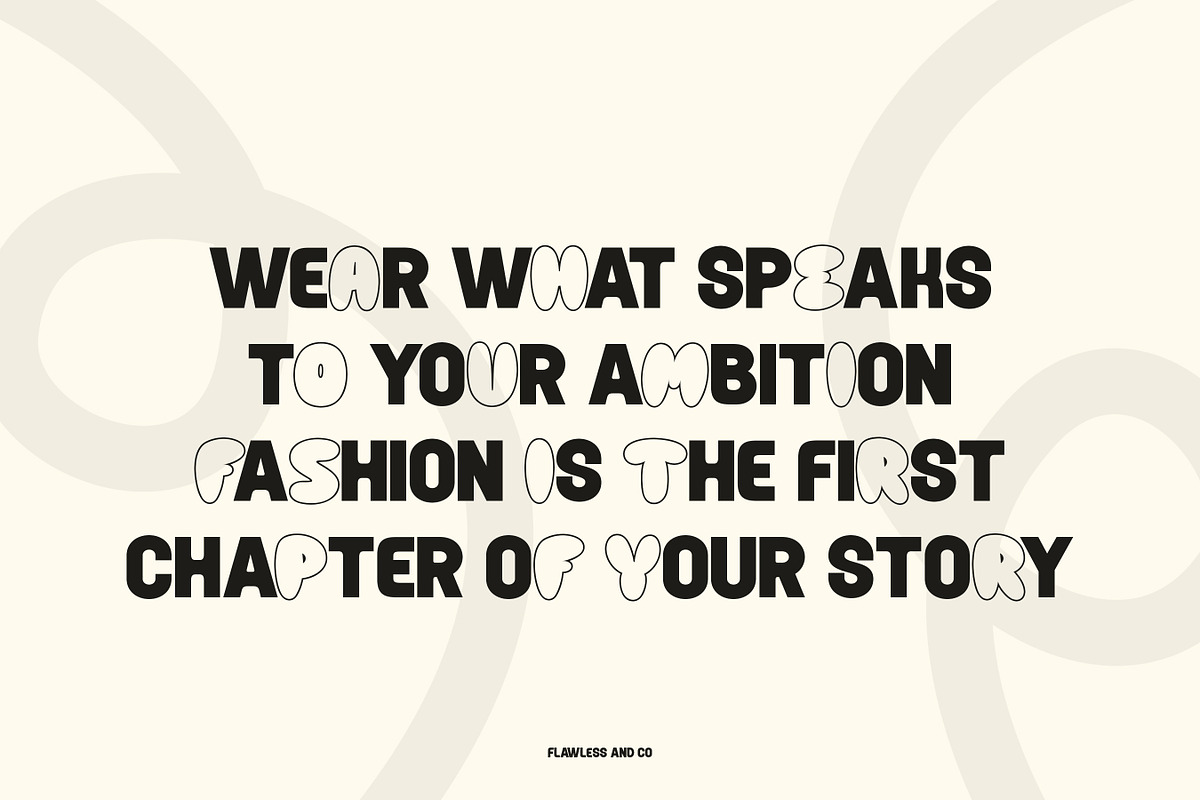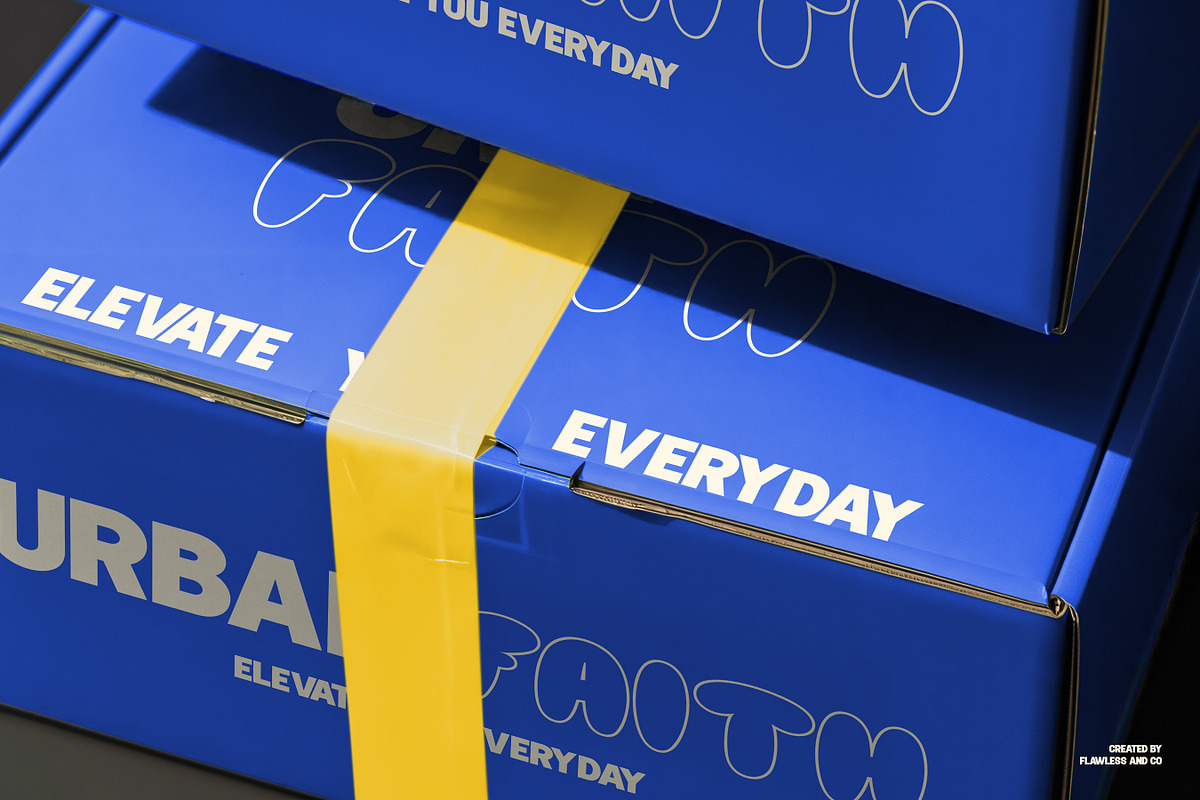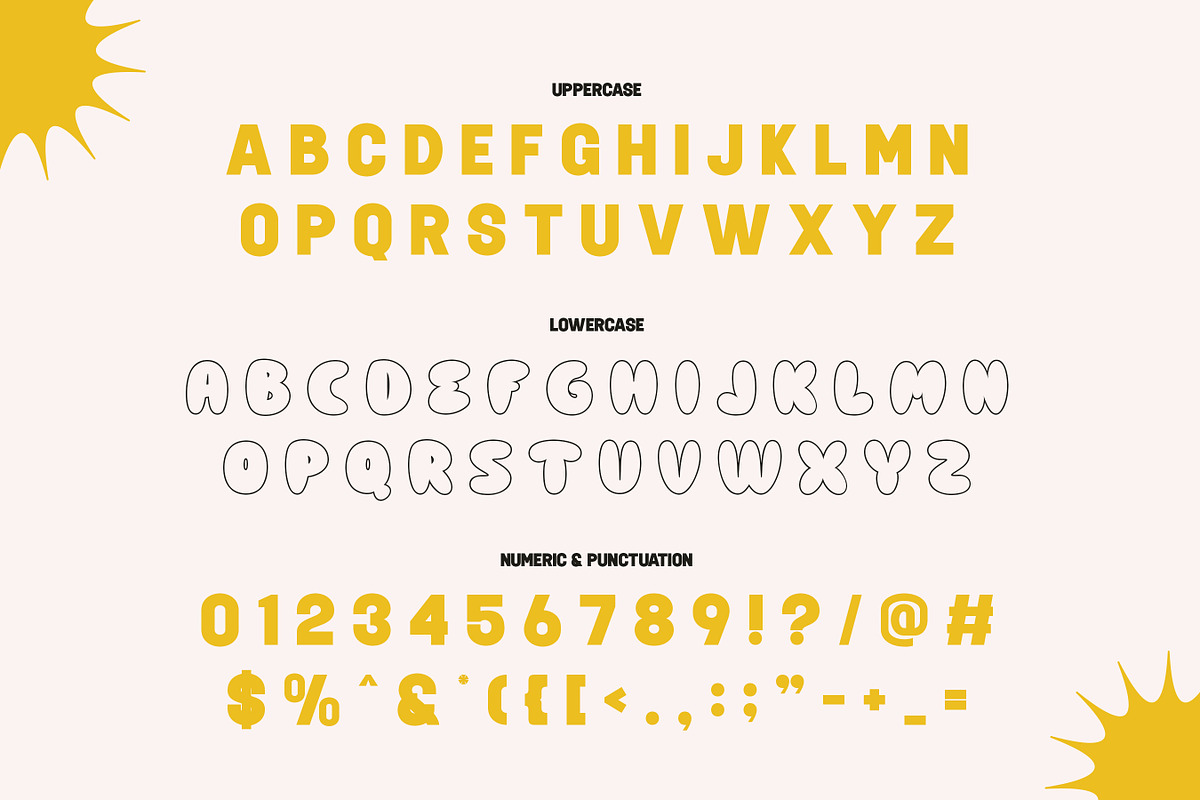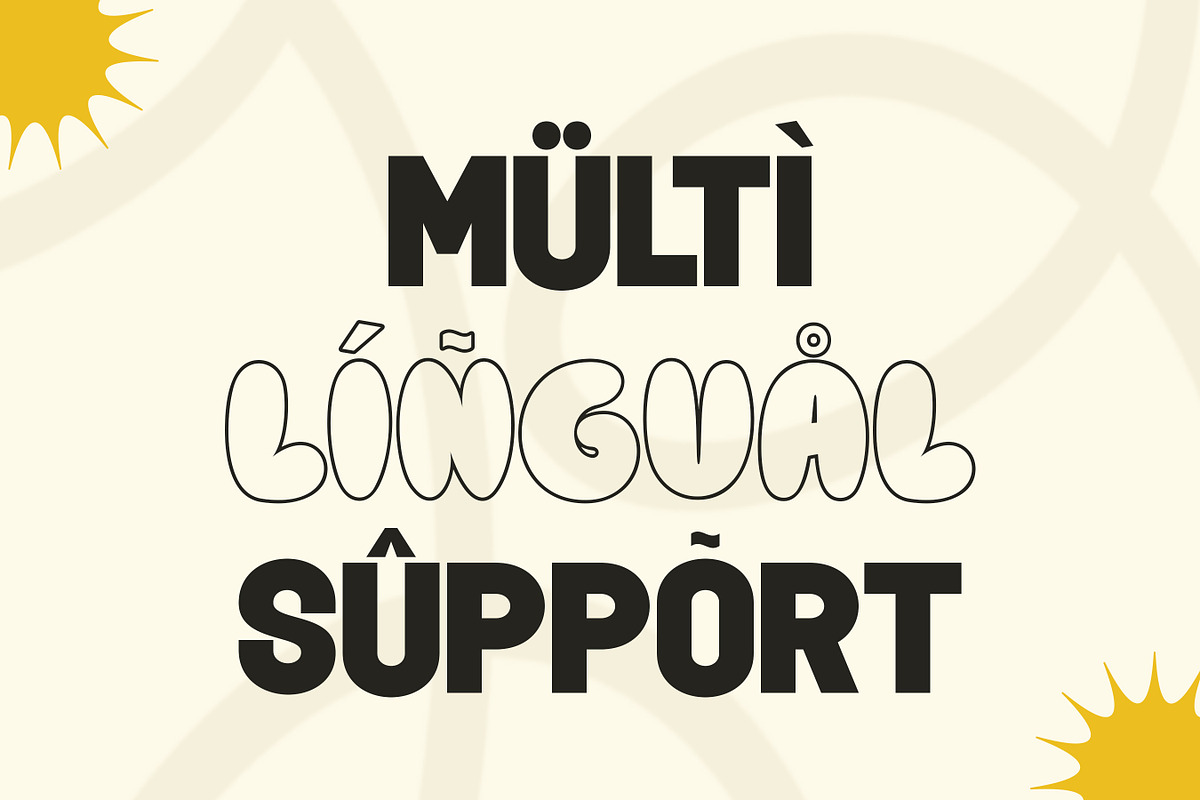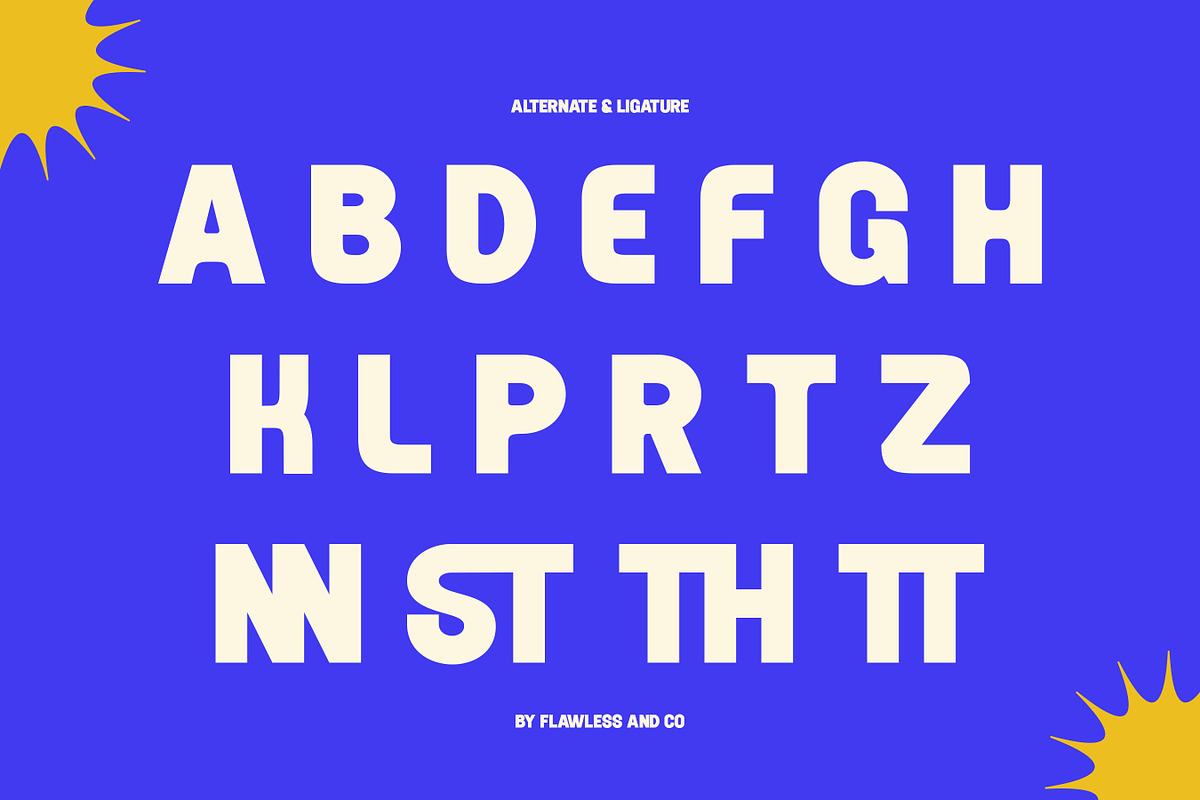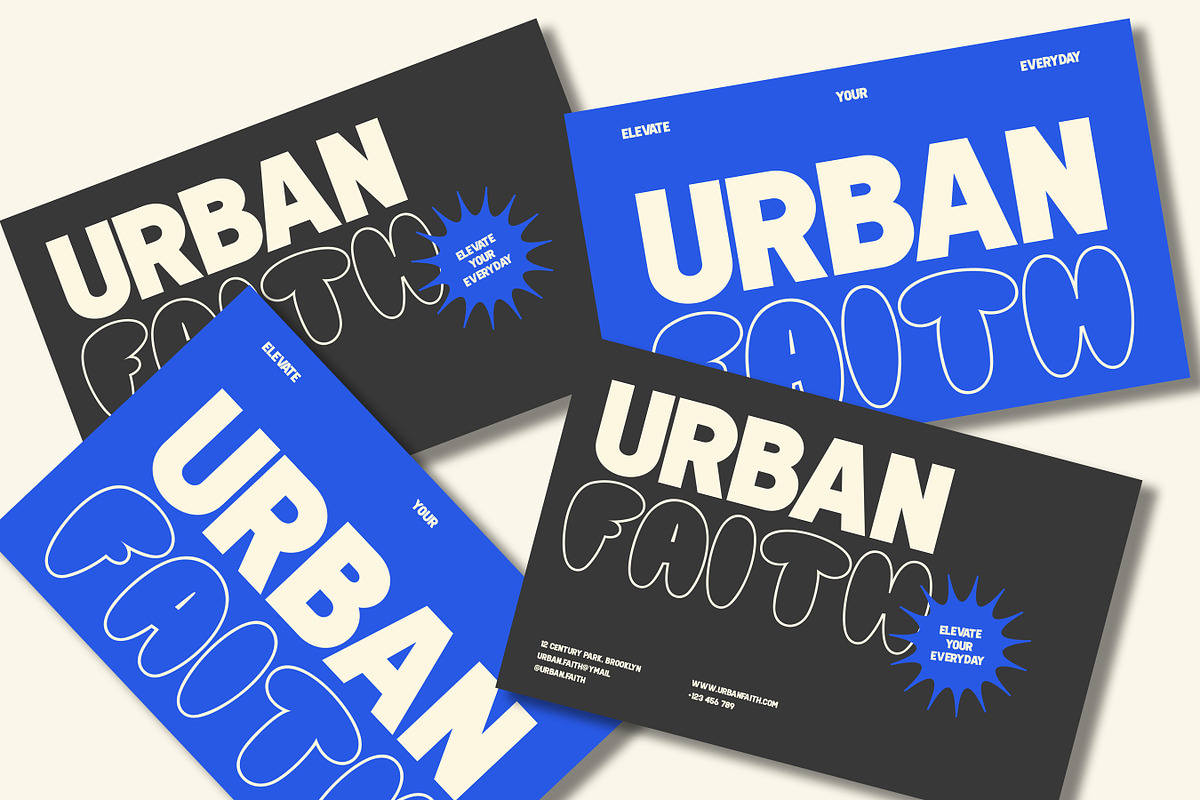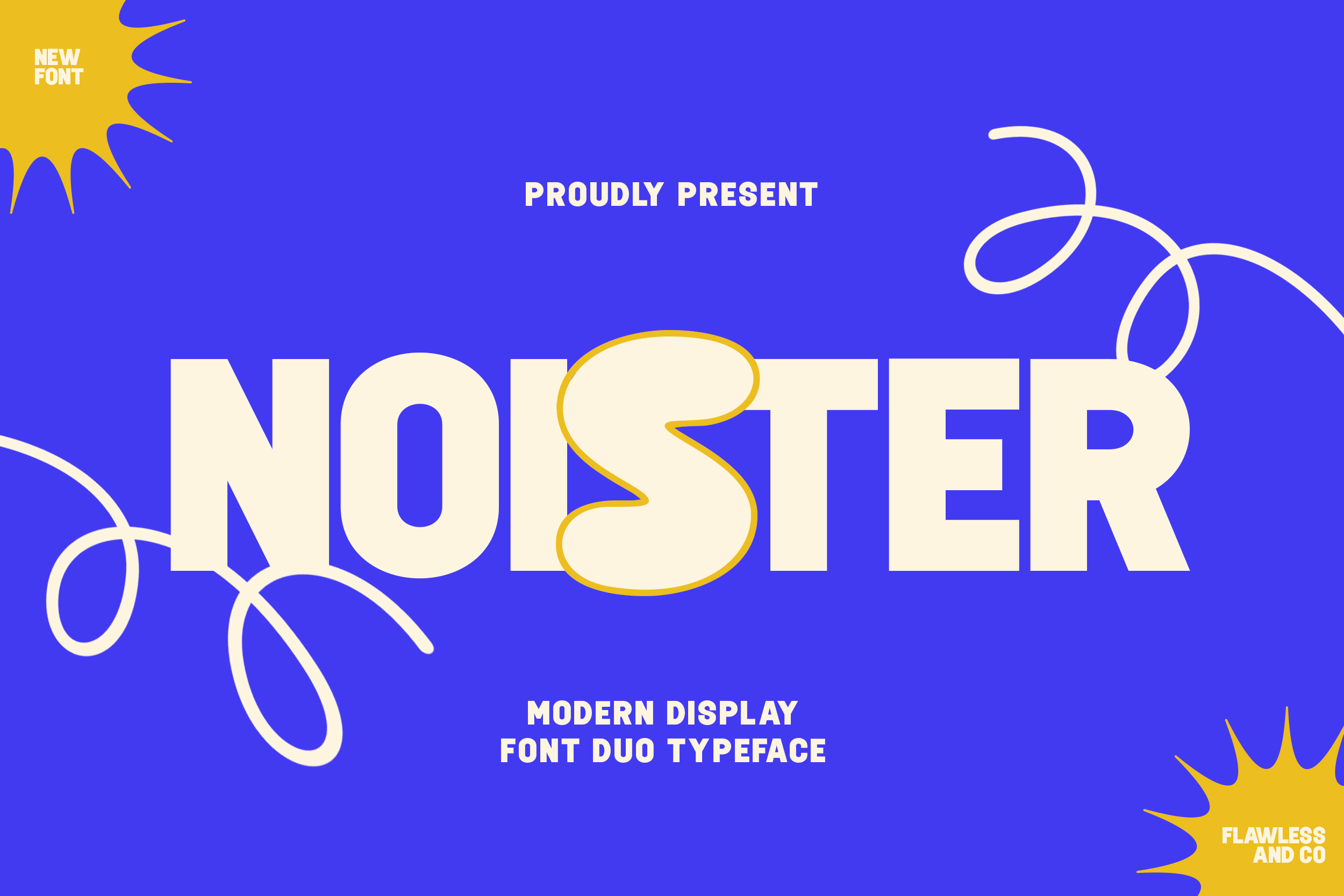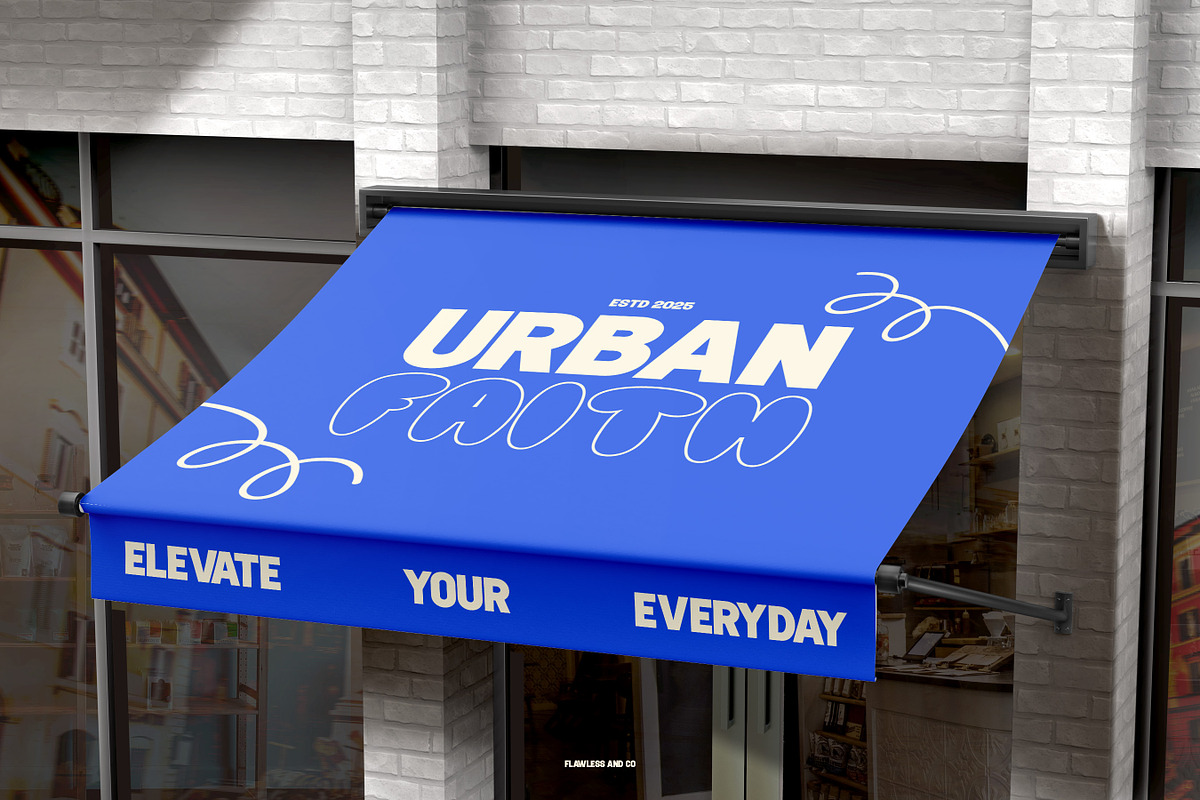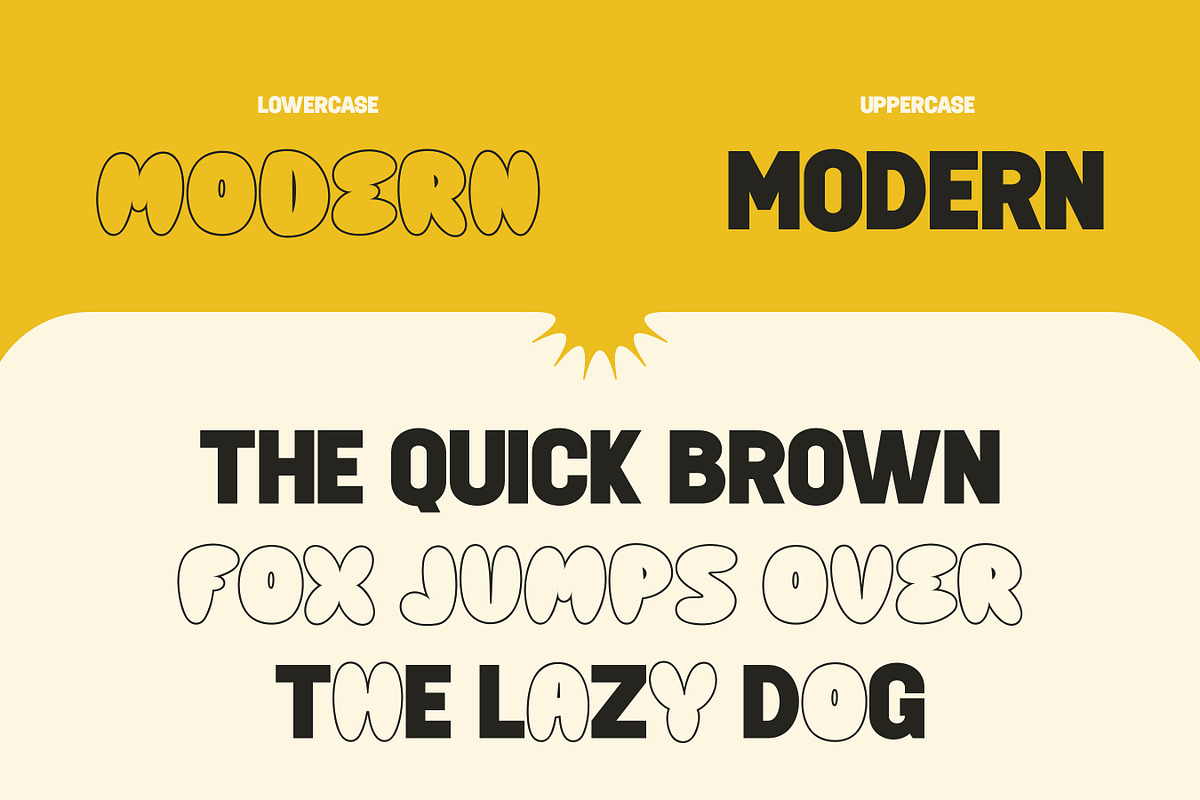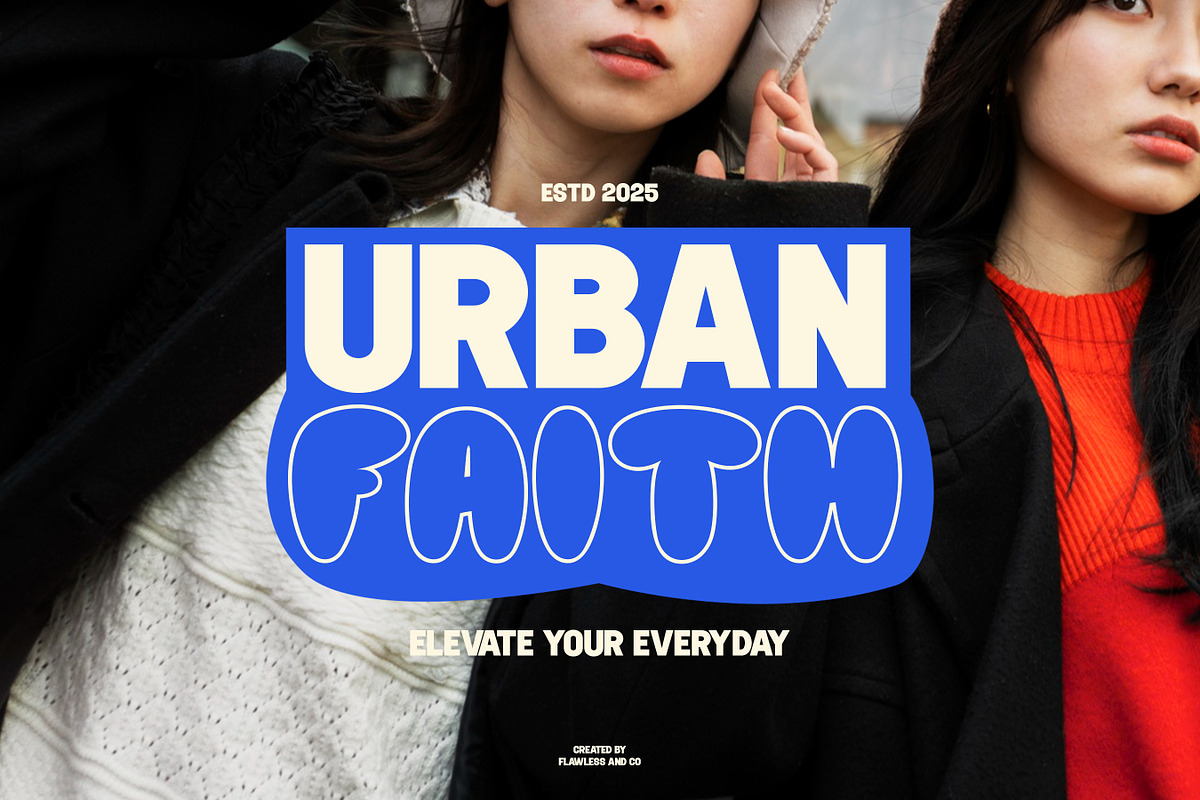
Noister - Modern Display Font
Noister is a modern display duo font designed to bring playful contrast and bold personality into your designs. Combining two distinctive styles in one typeface, Noister creates eye-catching typography that feels fun, expressive, and full of energy. Its strong main characters paired with a complementary secondary style make it easy to build dynamic layouts, standout headlines, and memorable brand identities. Whether you’re designing logos, posters, packaging, or social content, this duo font helps your message feel more engaging and visually balanced.
Who Should Use Noister?
Noister is perfect for designers, brand creators, and creatives who want bold and playful typography with strong visual impact. It’s ideal for logo designers, social media creators, and marketing teams looking to create eye-catching headlines and energetic branding. Noister is also a great choice for entrepreneurs, startups, and content creators who want their designs to feel modern, fun, and memorable.
A Must-Have Font for Brand and Logo Creators and Designers
A must-have font for brand and logo creators and designers who want to craft bold, modern, and eye-catching identities. Perfect for building logos and visual branding that feel fresh, confident, and instantly memorable across both digital and print media.
Why Choose Noister for Brand and Logo Projects?
Noister is designed to bring flexibility and strong visual impact to brand and logo projects. As a display duo font, it allows designers to mix and match styles for contrast and hierarchy, making logos look more dynamic and expressive. Its modern character forms deliver a bold, playful personality while remaining clear and readable, ensuring your branding stands out across digital and print applications. With Noister, creating distinctive, creative, and memorable brand identities becomes effortless.
Suitable For:
- Logo design & brand identity
- Branding projects & visual identity systems
- Packaging design (food, beverage, lifestyle, creative products)
- Posters & promotional materials
- Headlines & display typography
- Social media graphics & digital content
- Advertising & marketing campaigns
- Creative editorials & visual storytelling
- Modern display typography projects